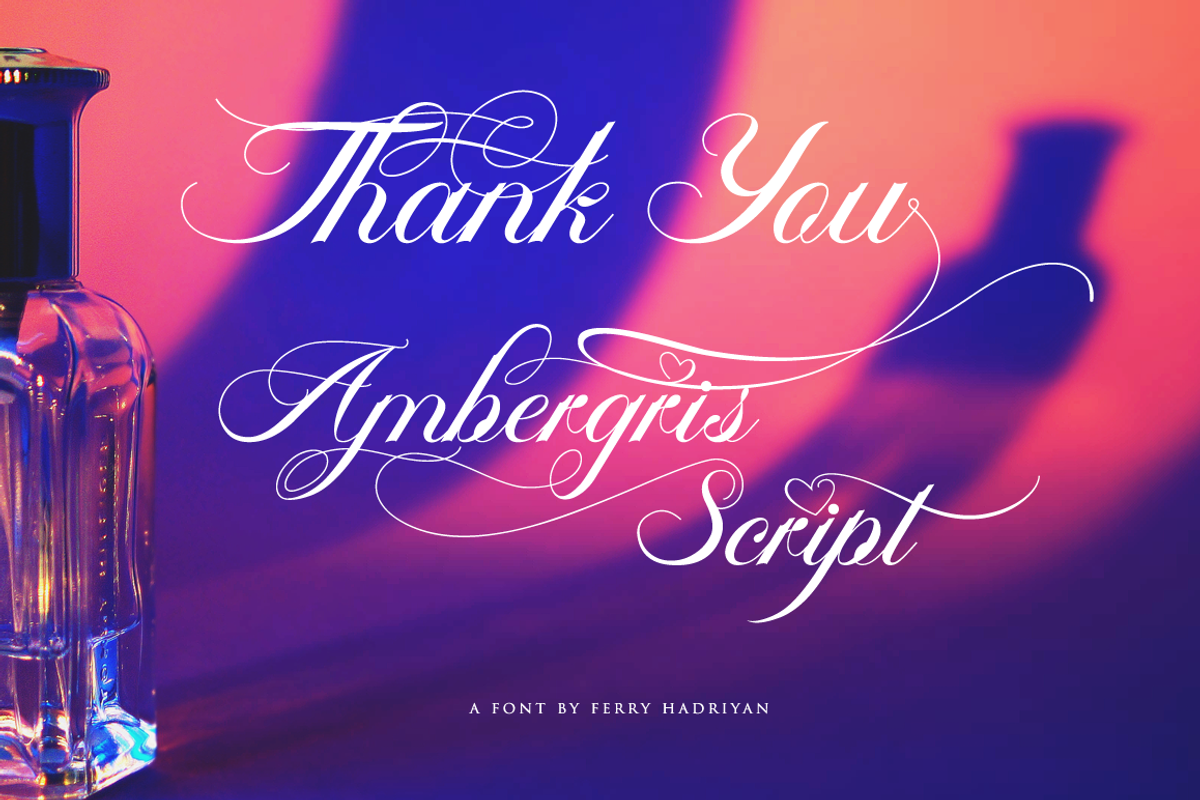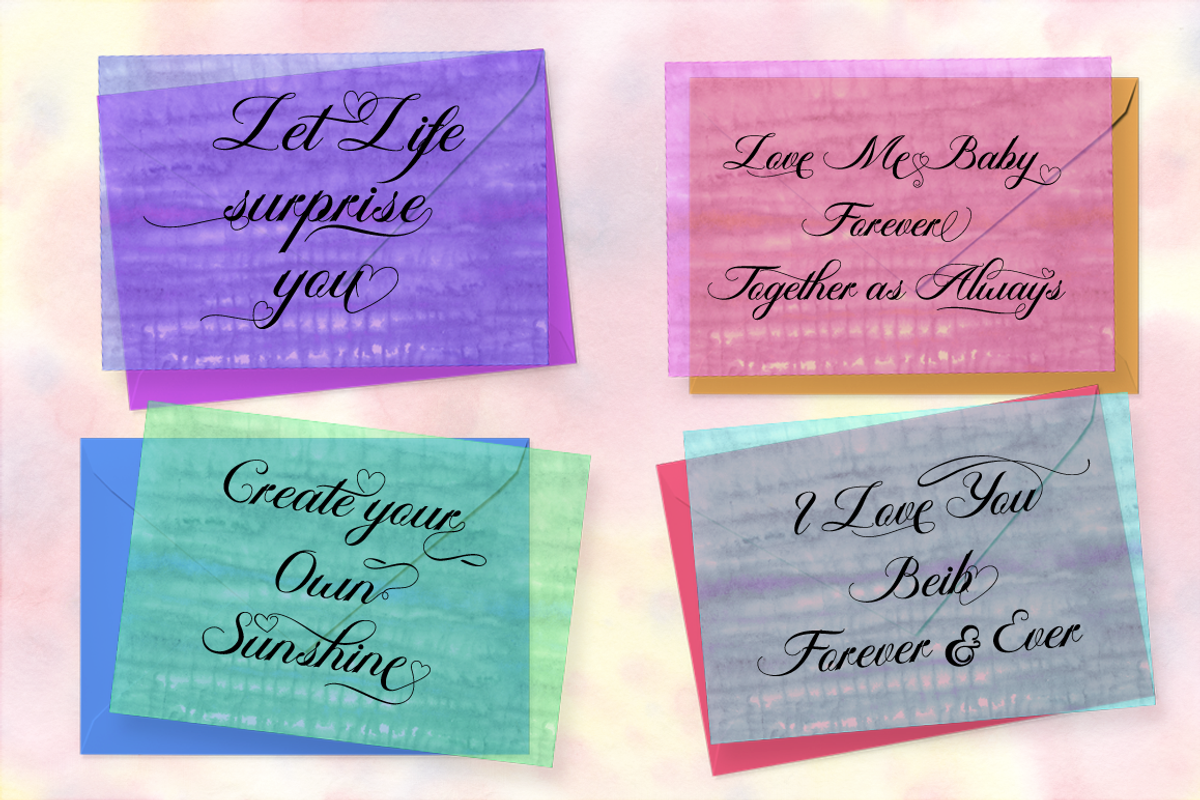
Ambergris Script
Ambergris
Ambergris is script font with modern calligraphy style,so much feature OpenType with swashes, 22 stylistic set, standard ligatures, Titling, Swashes, etc, Suitable for design, element design, wedding, event, t-shirt, logo, badges, sticker, and awesome work, etc...
Combination alternative ligature fonts
Standard Ligatures, Stylistic Set, Multilanguage Characters, etc
Modern Calligraphy Typeface
Multilanguage Support
Unique style fonts